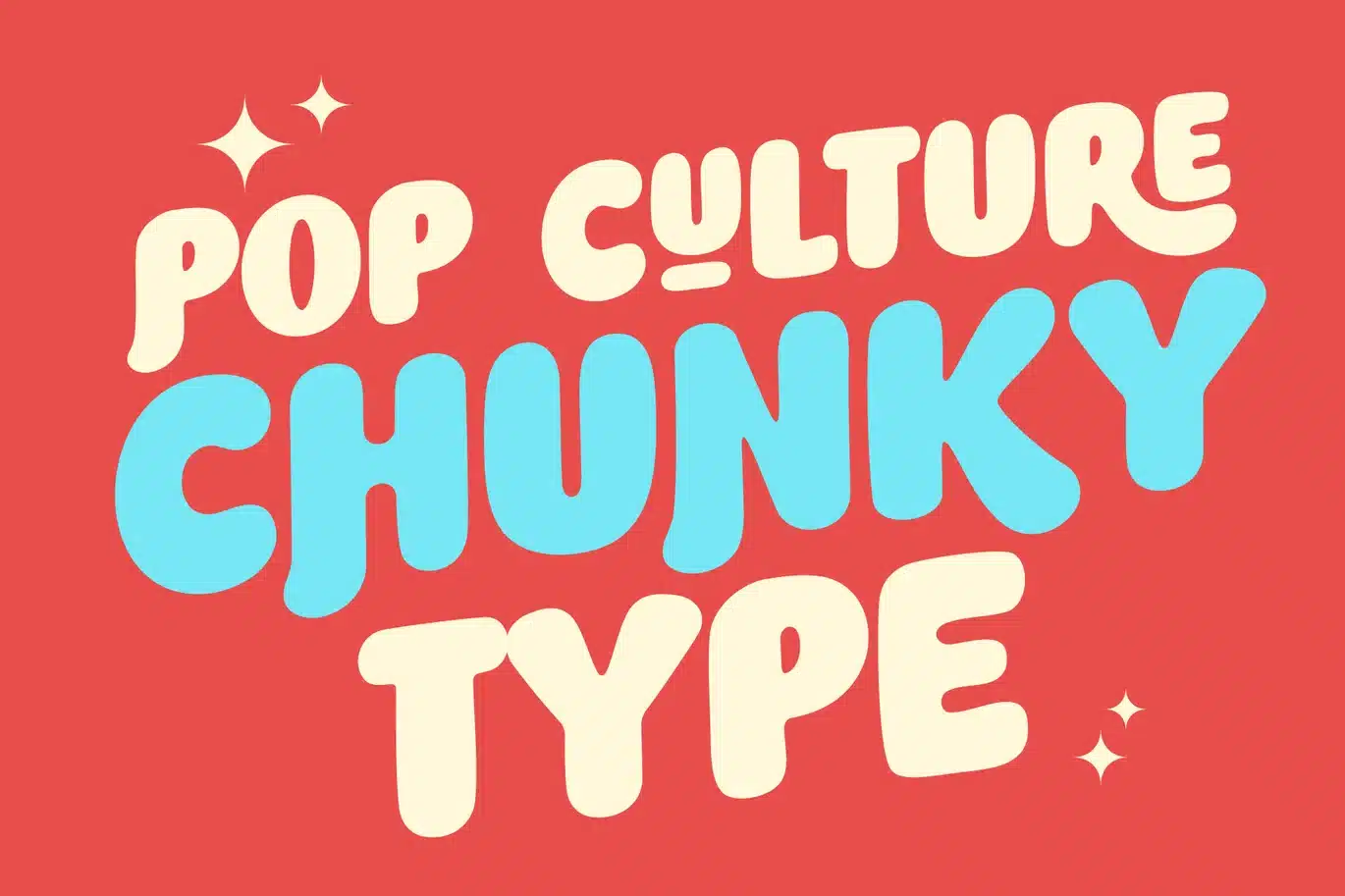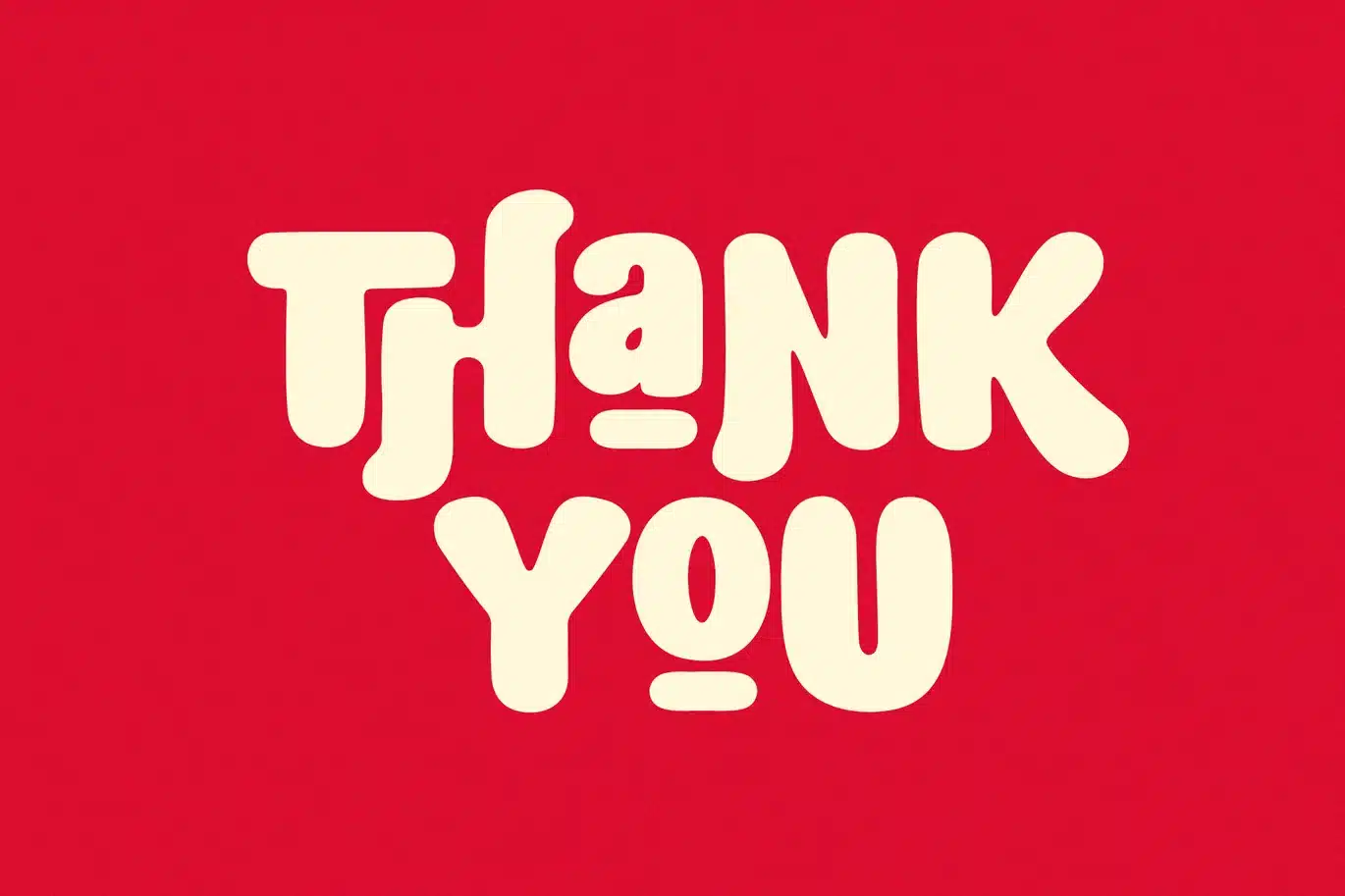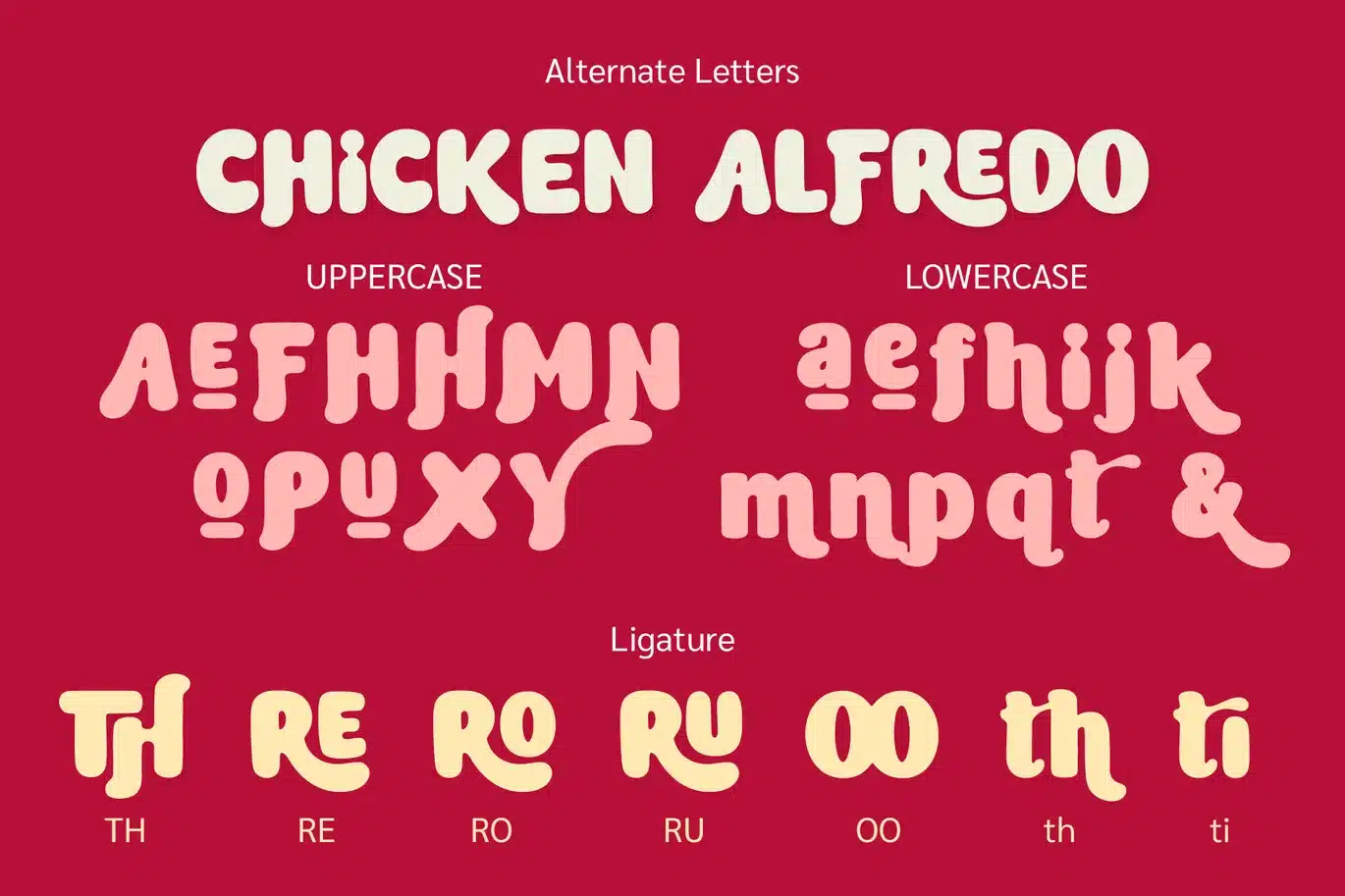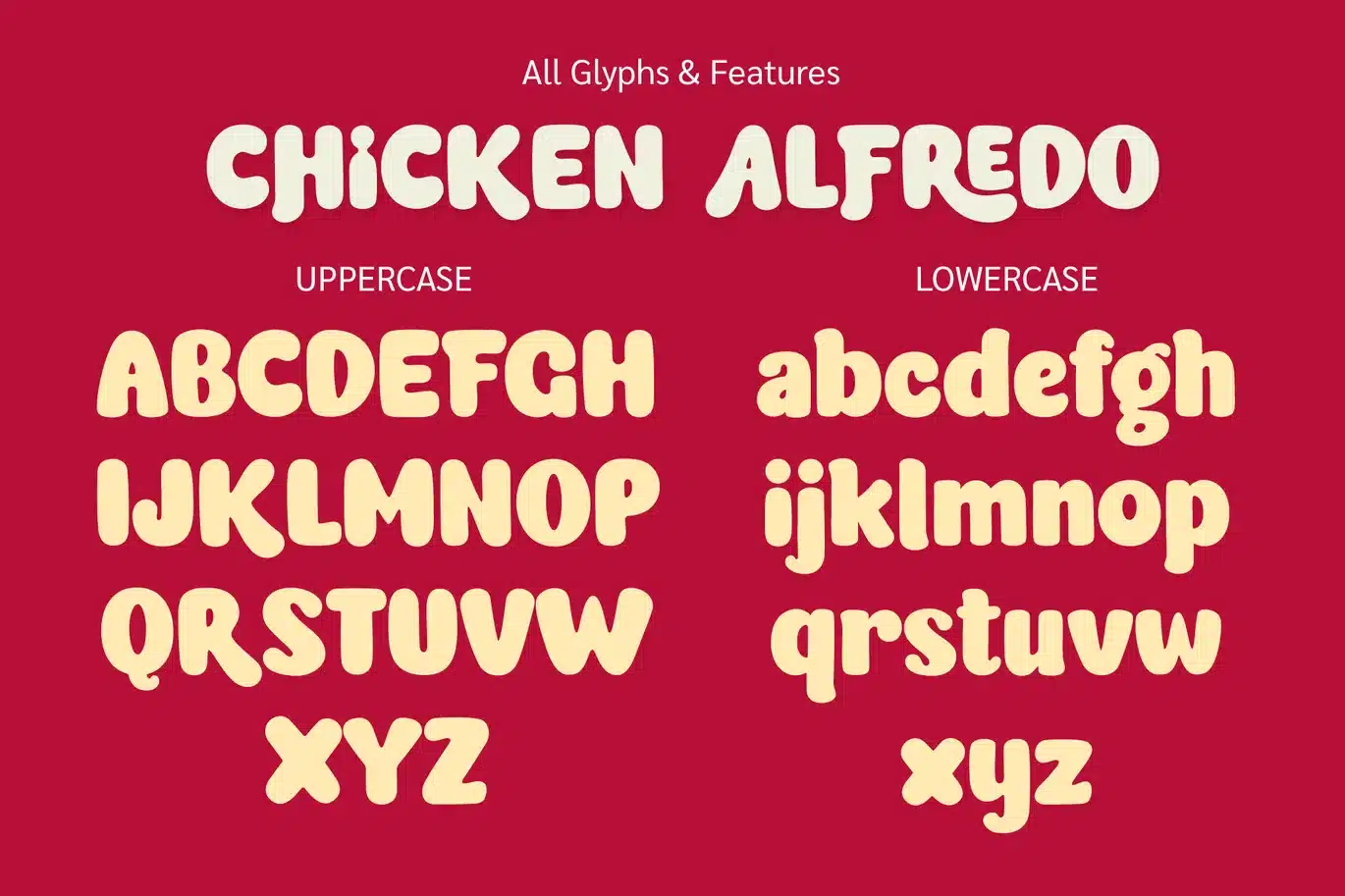
Chicken Alfredo Font
Chicken Alfredo is a bold, chunky, and playful display font designed to make your typography stand out. With its soft rounded shapes and friendly personality, this typeface brings a strong visual impact while staying fun and approachable. This font blends retro charm with modern playfulness, making it highly versatile for a wide range of creative works, from professional branding to artistic designs.
🎯 Perfect For
- Branding & Logo Design
- Packaging Design
- Posters & Headlines
- Social Media Graphics
- Children & Fun Projects
- Retro & Modern Designs
- Uppercase & Lowercase Letters
- Special Ligatures
- Unique Alternate Characters